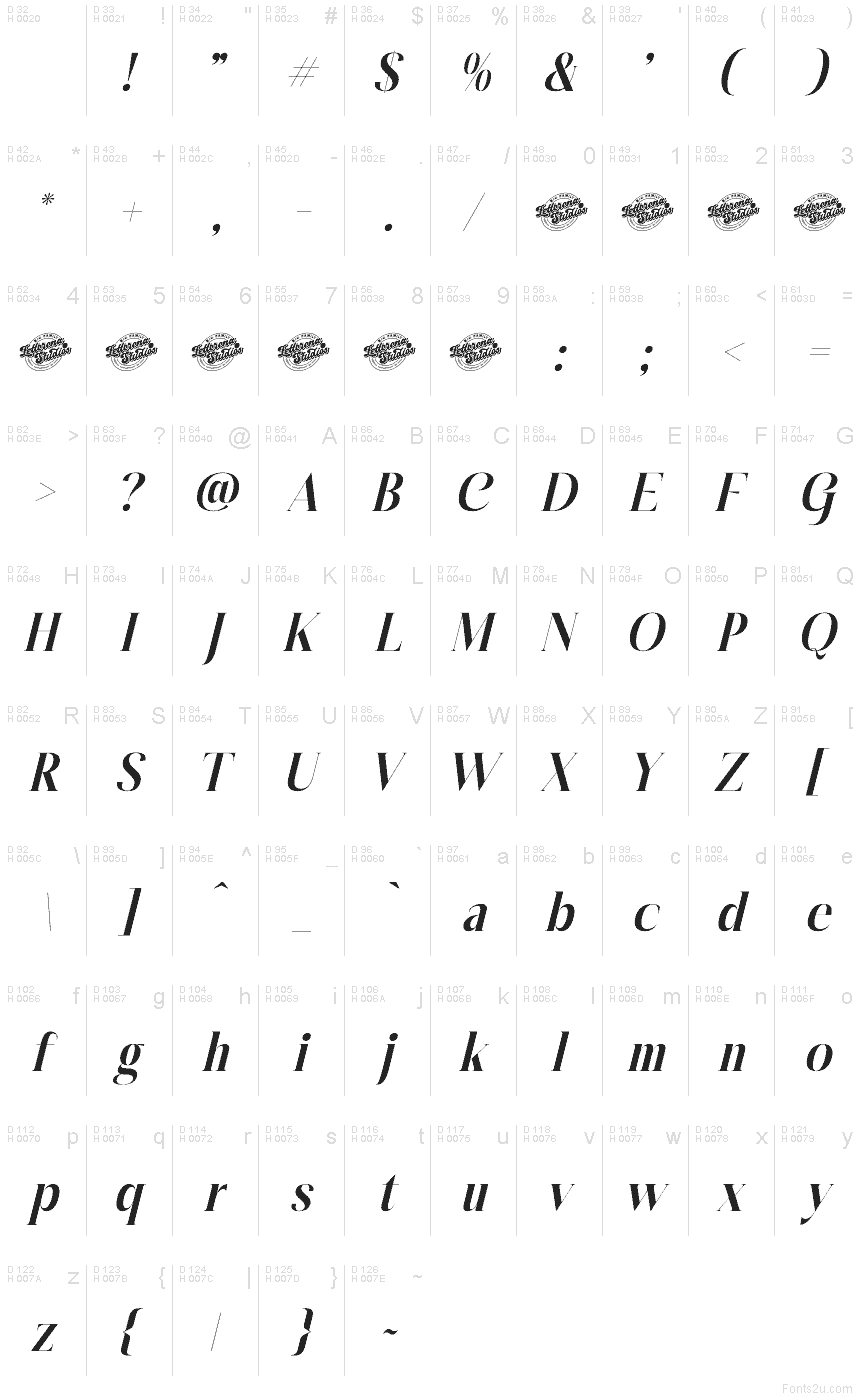
Glanity DEMO VERSION Italic
Glanity Italic font by Letterena Studios is a free serif font that combines elegance, sophistication, and a modern touch all in one. This typeface stands out for its refined aesthetic, featuring subtle curves that enhance its stylish appeal. It’s perfect for creating an impressively polished look in your next project.
Whether you’re working on luxurious branding designs or modern advertisements, Glanity Italic will give the exact effect needed. Use it to design fashion media projects, wedding invitations, stationery items, logotypes and more. Check out how great it can look when used on magazine covers or book covers as well!